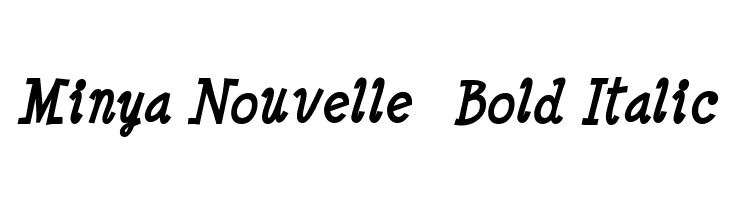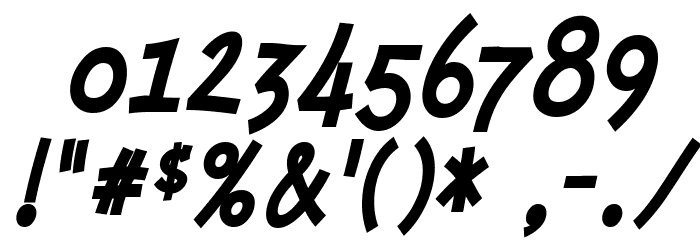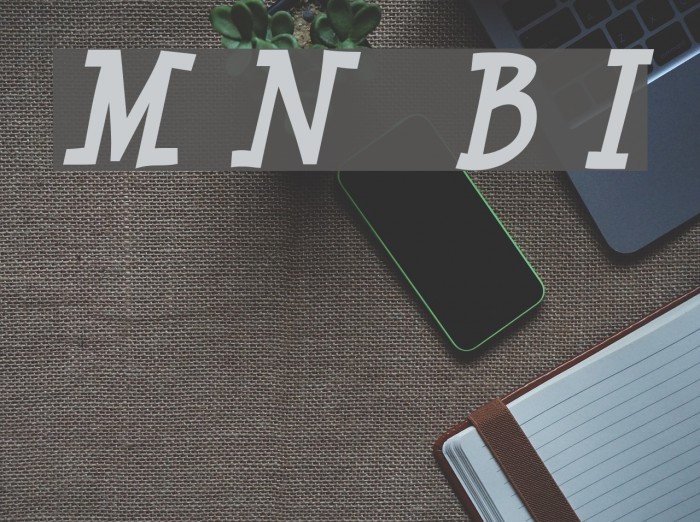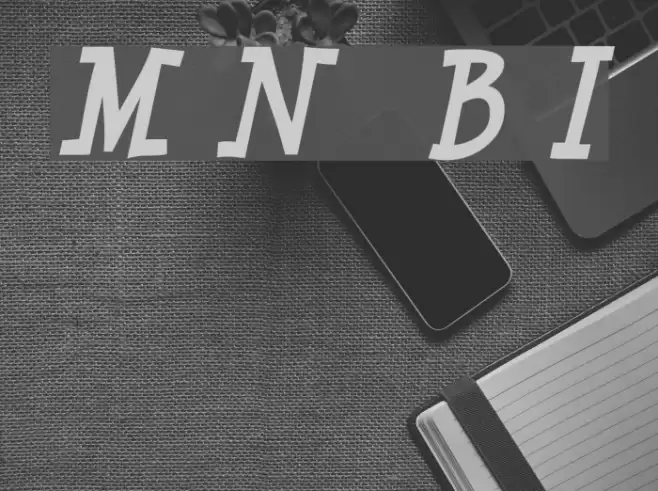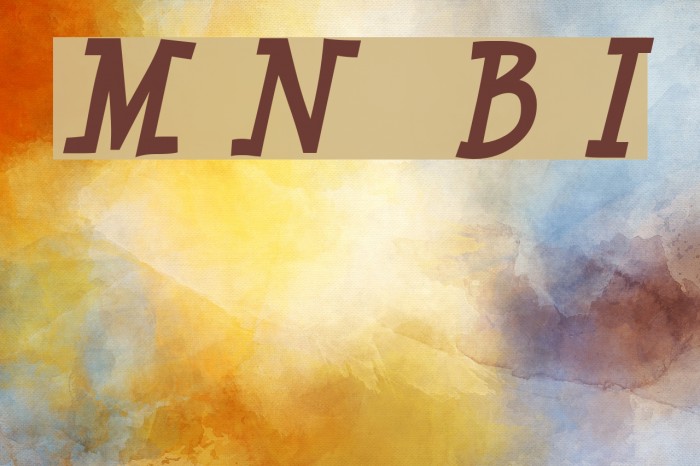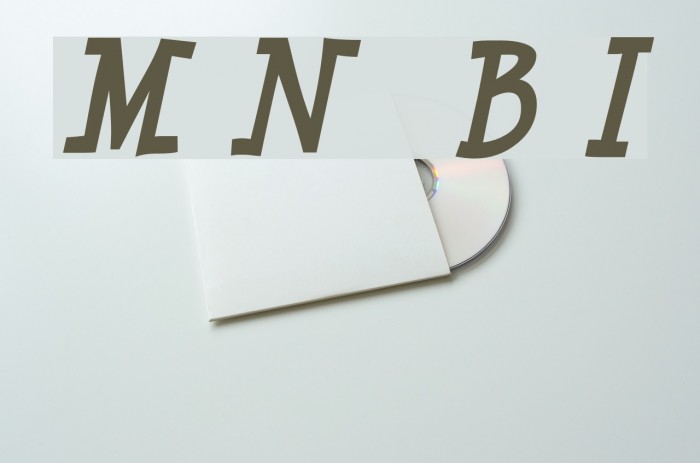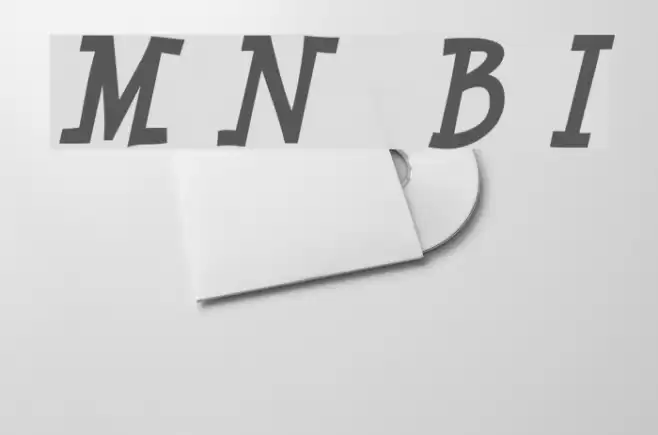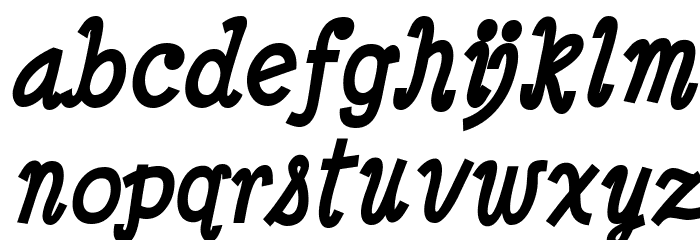
Minya Nouvelle Bold Italic Font
Minya Nouvelle Bold Italic Description
This font features a bold and italic style with a dynamic and flowing appearance. The uppercase letters are slightly slanted, giving a sense of movement and elegance. The lowercase letters maintain a consistent slant, enhancing readability while adding a touch of sophistication. The numerals are bold and clear, ensuring they stand out in any design. Special characters are well-defined, maintaining the overall aesthetic of the font. The strokes are thick, providing a strong presence, while the italic angle adds a unique flair.